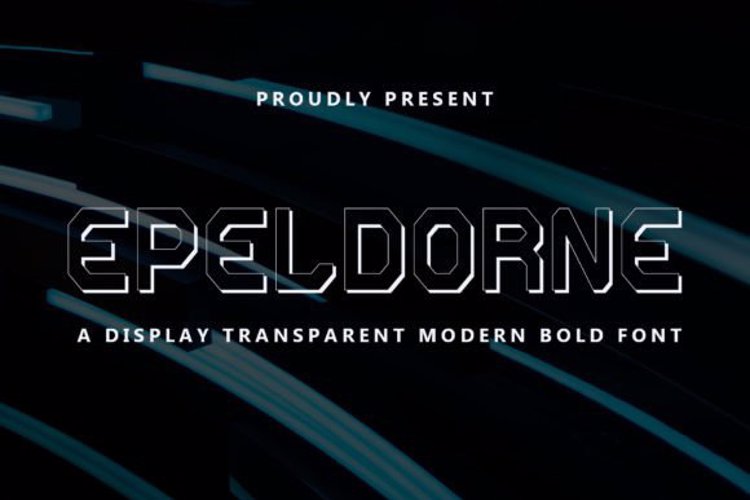
Epeldorne Font
Epeldorne is a modern display font with a contemporary feel. It celebrates abstract shapes in all their eclectic beauty. This font will look truly outstanding in a wide range of contexts.